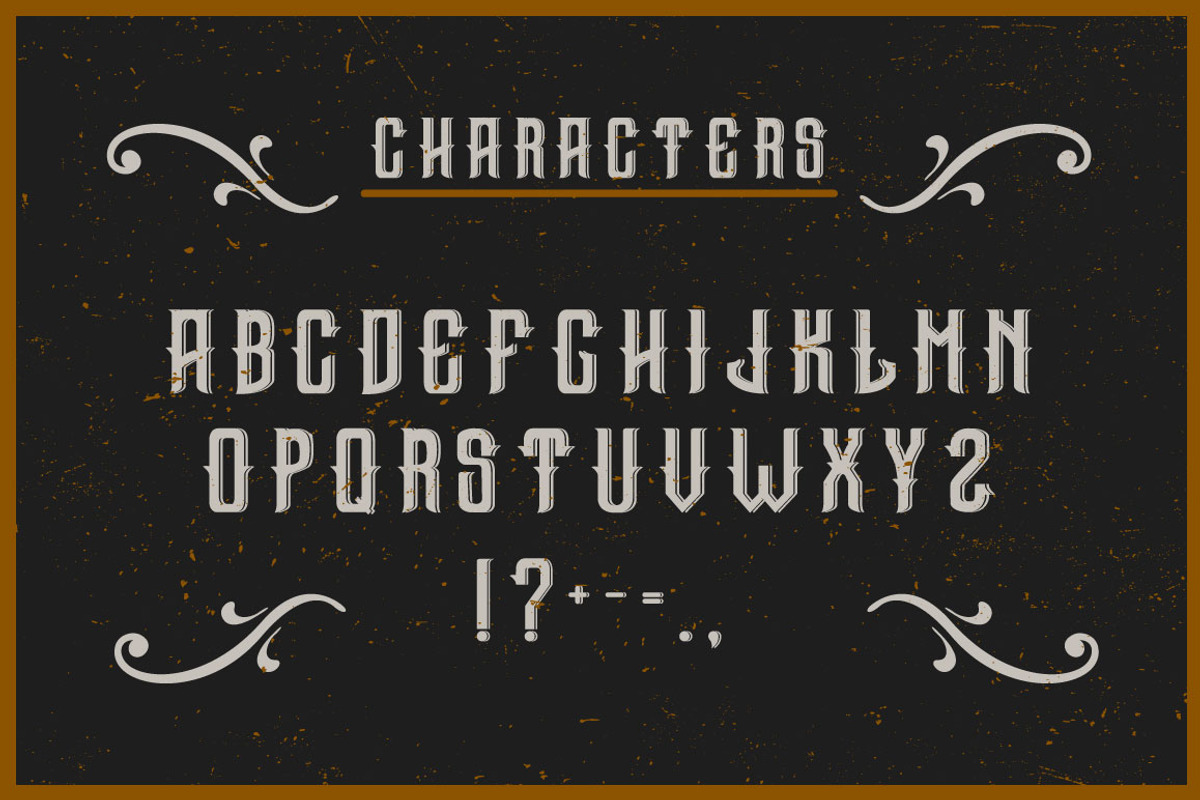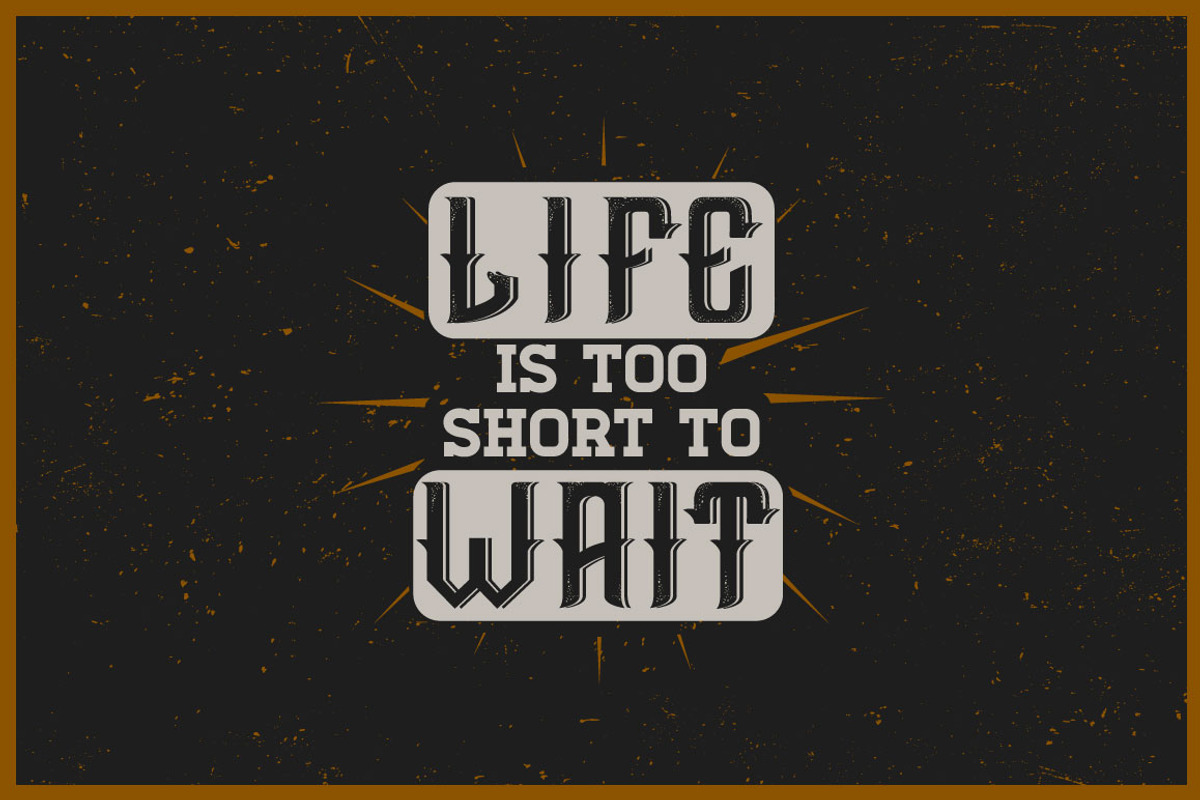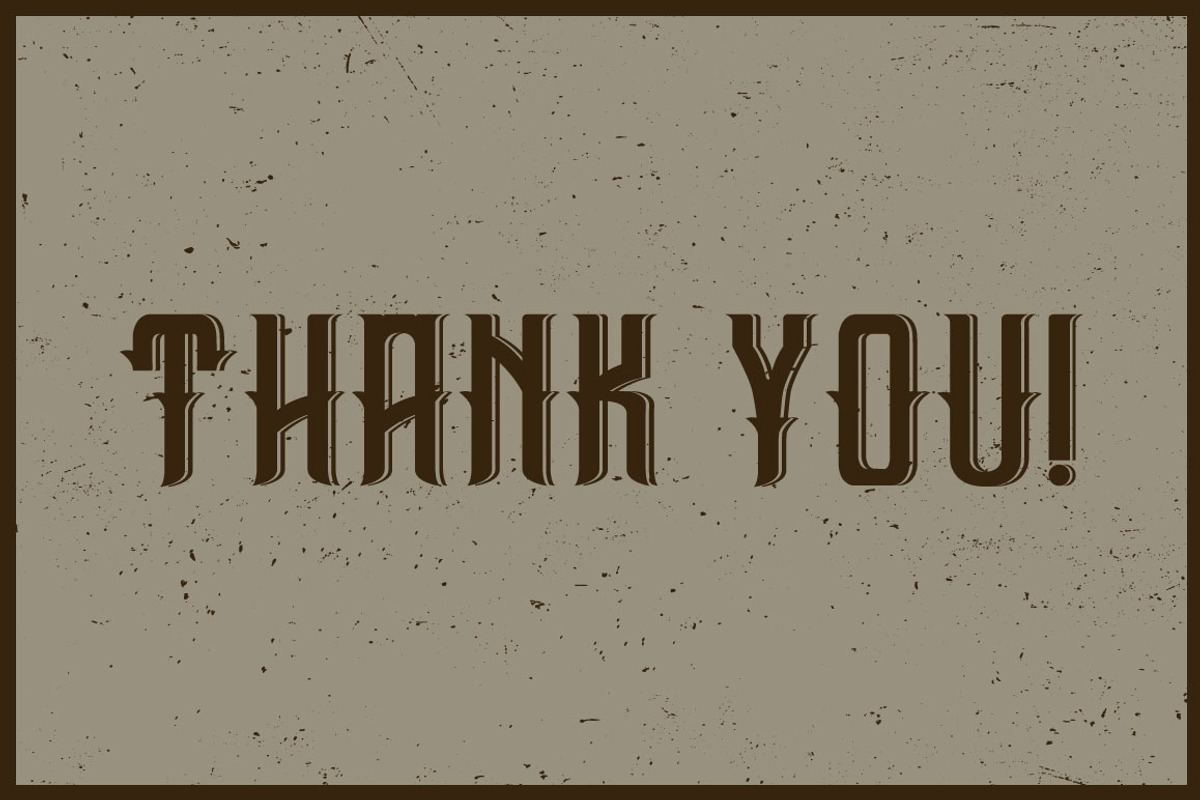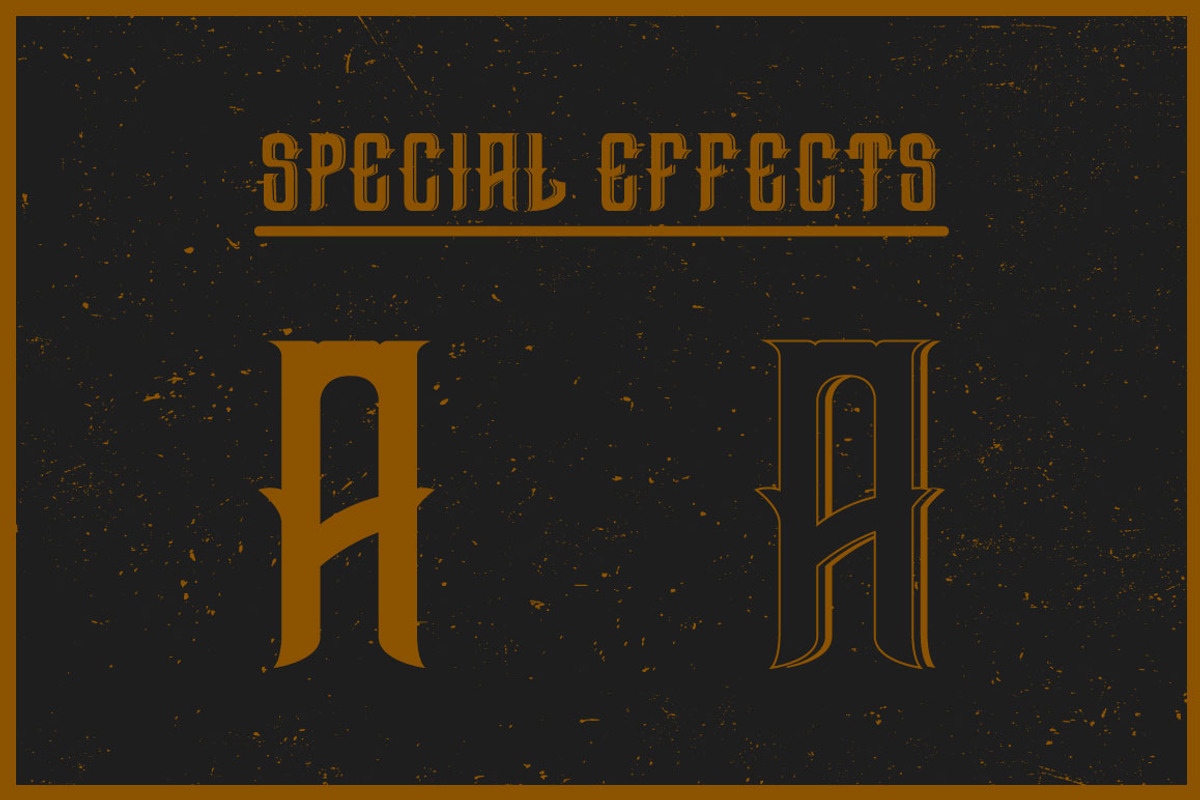
Gin label font
Gin label font by Heatherinsane is a font selected for branding, posters, packaging, typography.
Why Gin label font is worth a look
Gin label font by Heatherinsane fits naturally into Branding, posters, packaging, typography.